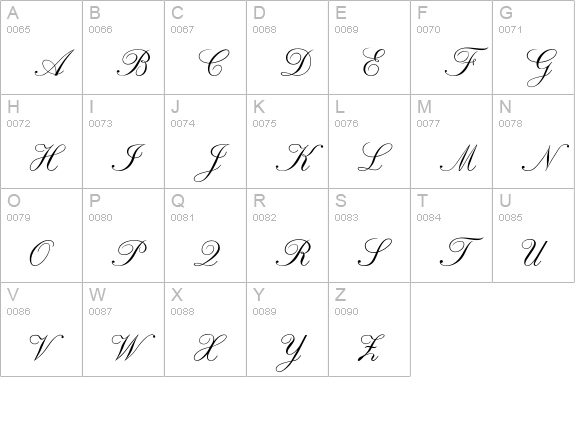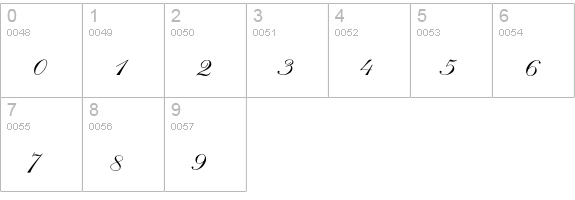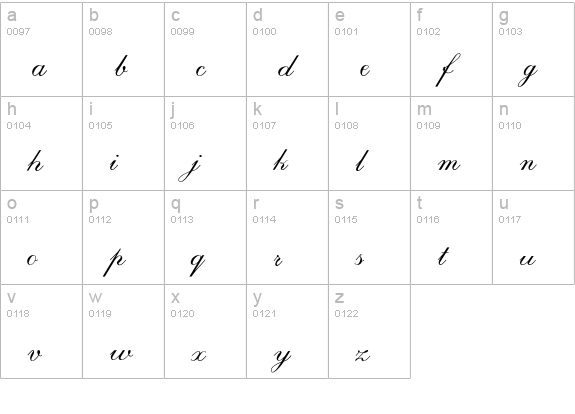
RespighiOpti-Script Font Details
RespighiOpti-Script is a stunningly elegant and sophisticated font that effortlessly captures the essence of handwritten calligraphy. With its graceful curves, delicate strokes, and intricate details, this font exudes a sense of timeless beauty that is sure to captivate anyone who lays eyes on it. The flowing nature of RespighiOpti-Script makes it perfect for adding a touch of elegance and refinement to any design project. Whether you're creating wedding invitations, branding materials, or simply want to add a touch of sophistication to your personal correspondence, this font is a seamless choice. RespighiOpti-Script is not only visually appealing but also incredibly versatile. Its sleek and legible letterforms ensure easy readability, making it a fantastic choice for both print and digital applications. From large headlines to body text, this font will never fail to make a statement. What makes RespighiOpti-Script even more enticing is the fact that it is free to download at FontsMarket.com. This means that you can bring the beauty and elegance of this font into your projects without breaking the bank. Whether you are a professional designer or a hobbyist, this font offers a high-quality and stylish option at no cost. So, why wait? Enhance your designs with the timeless charm of RespighiOpti-Script today. Download it freely at FontsMarket.com and let your creativity soar.